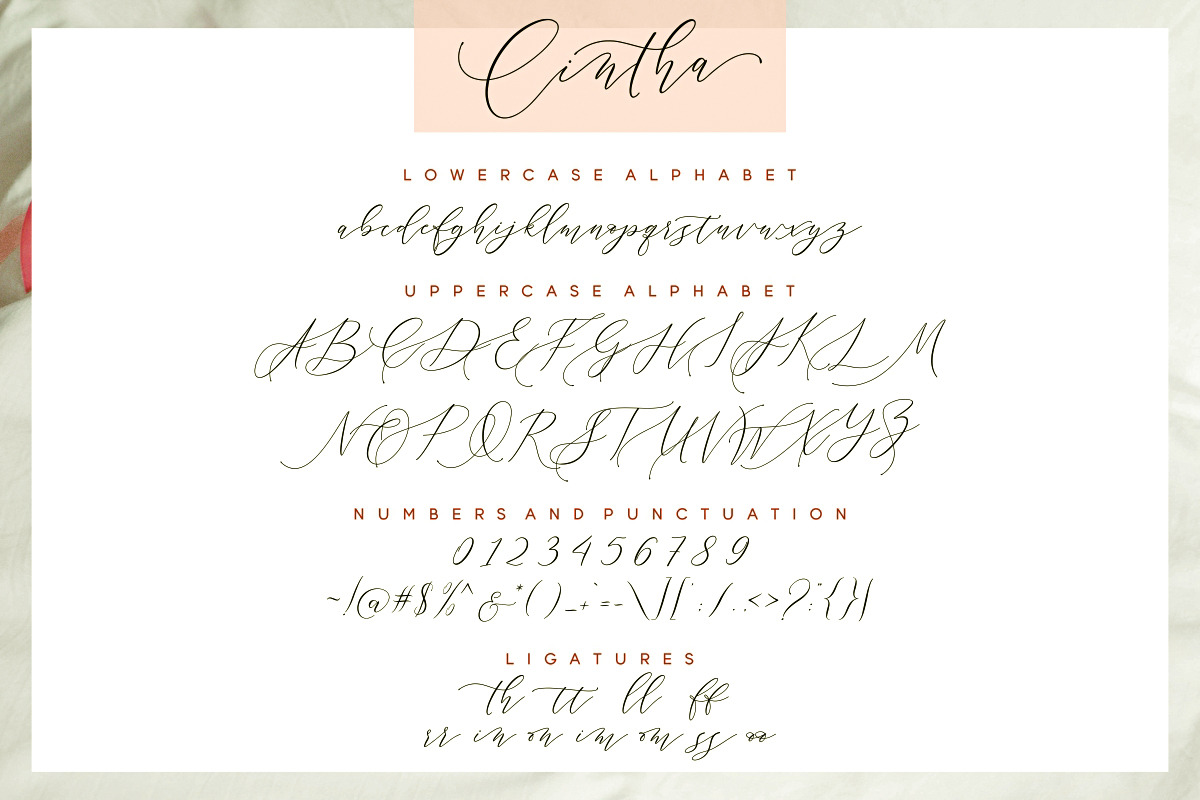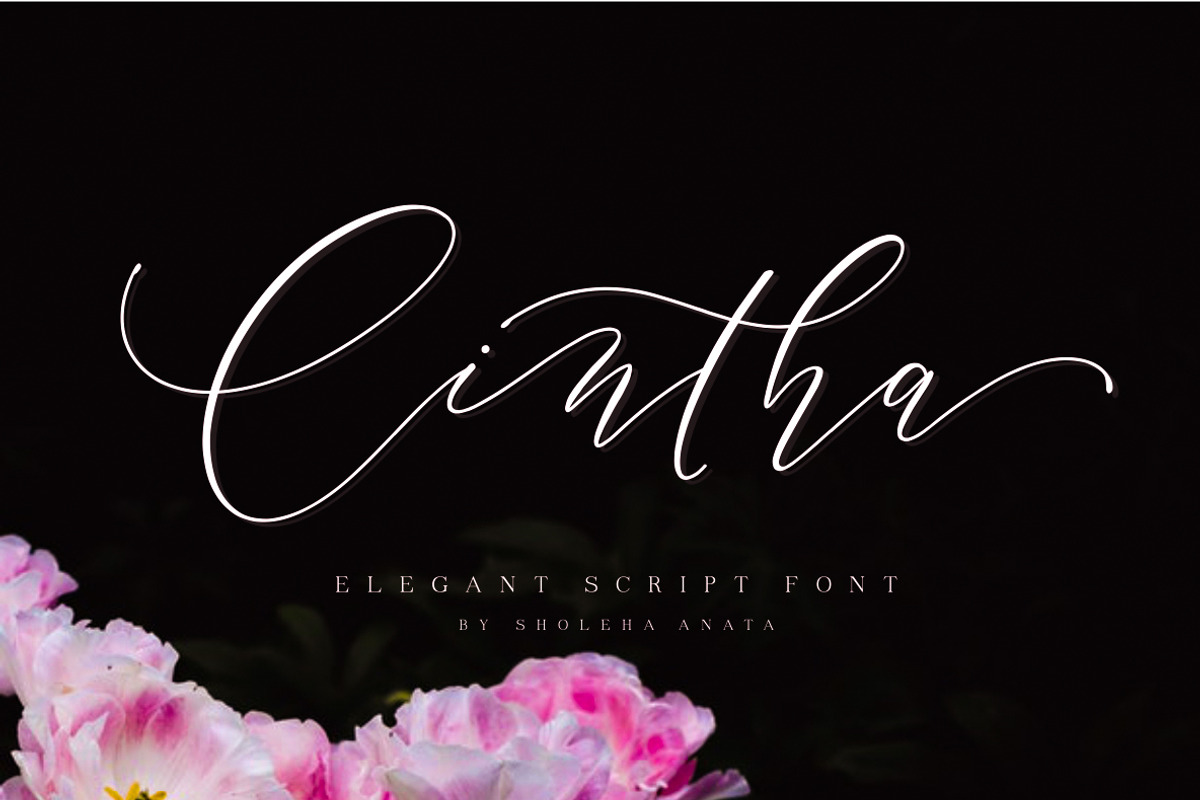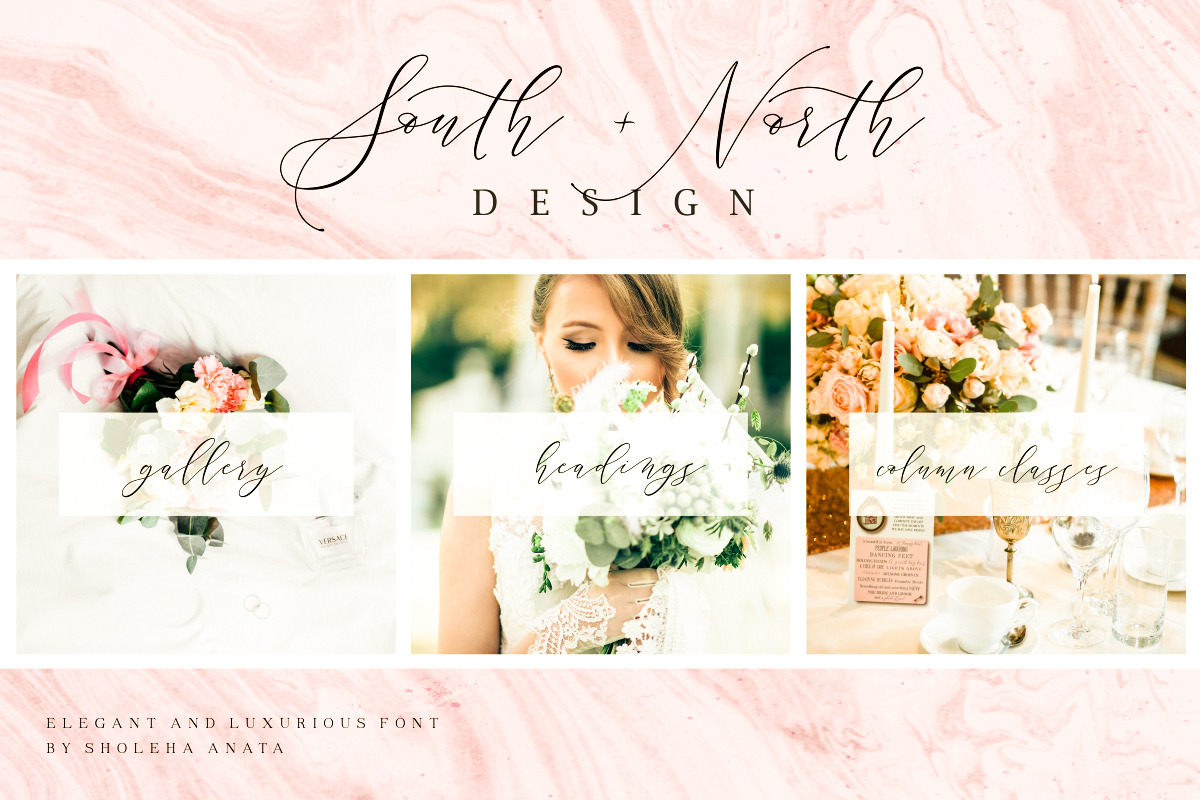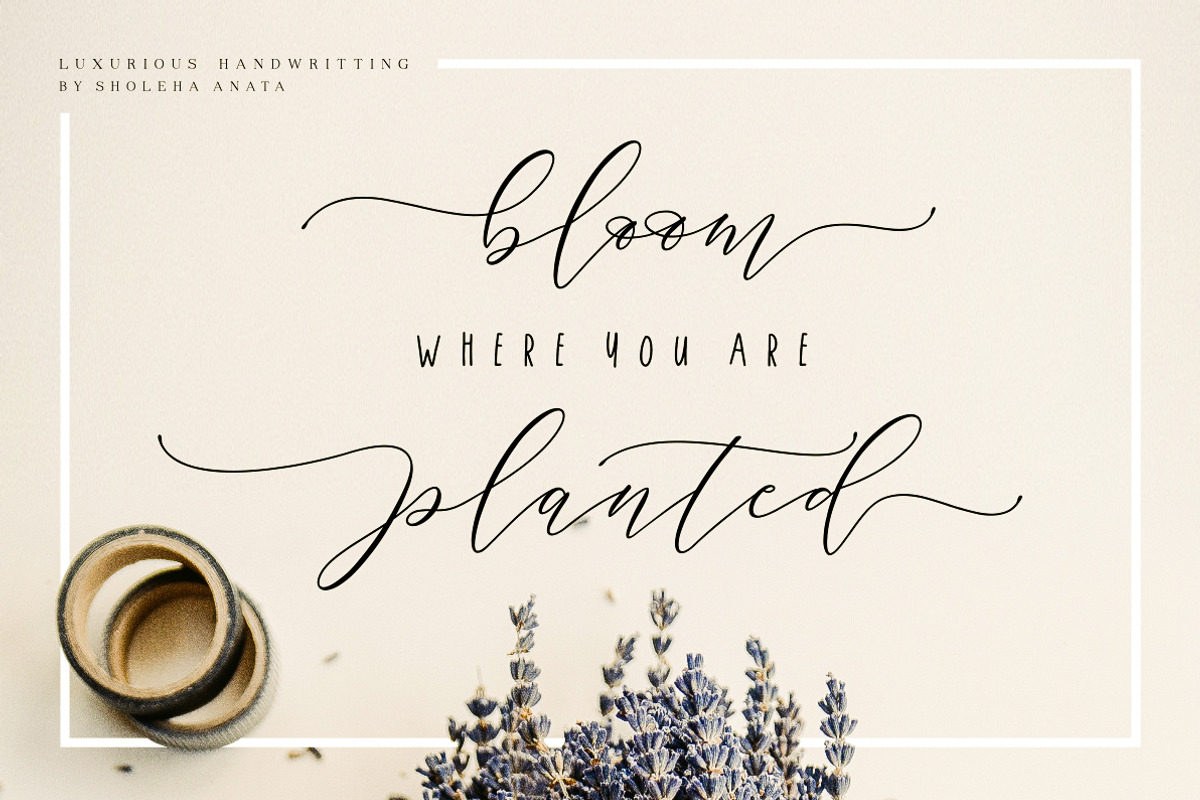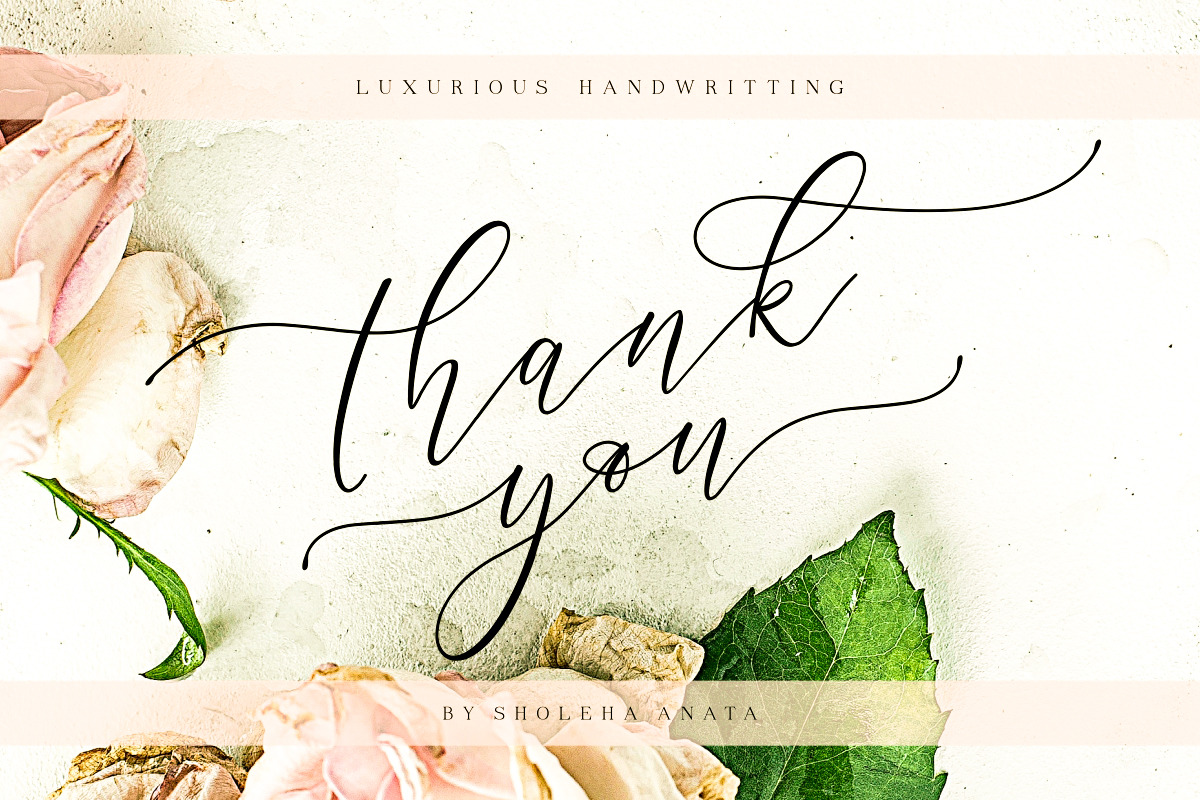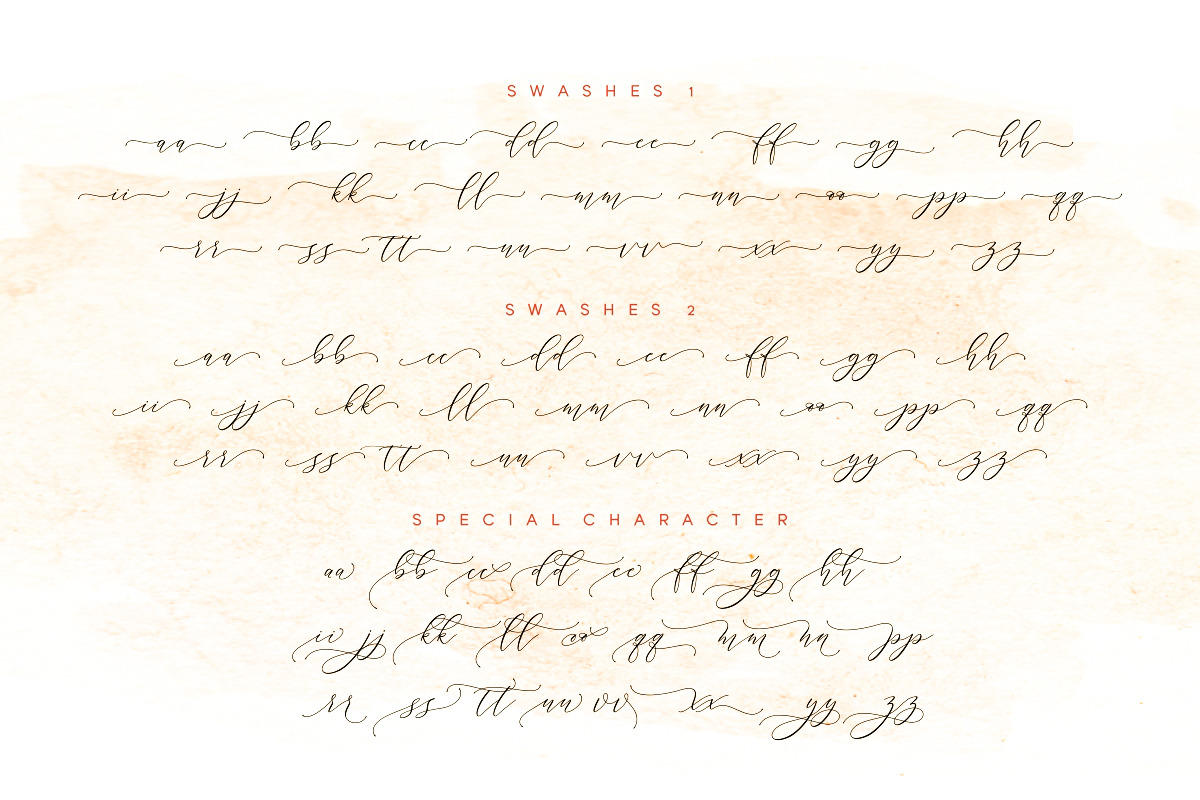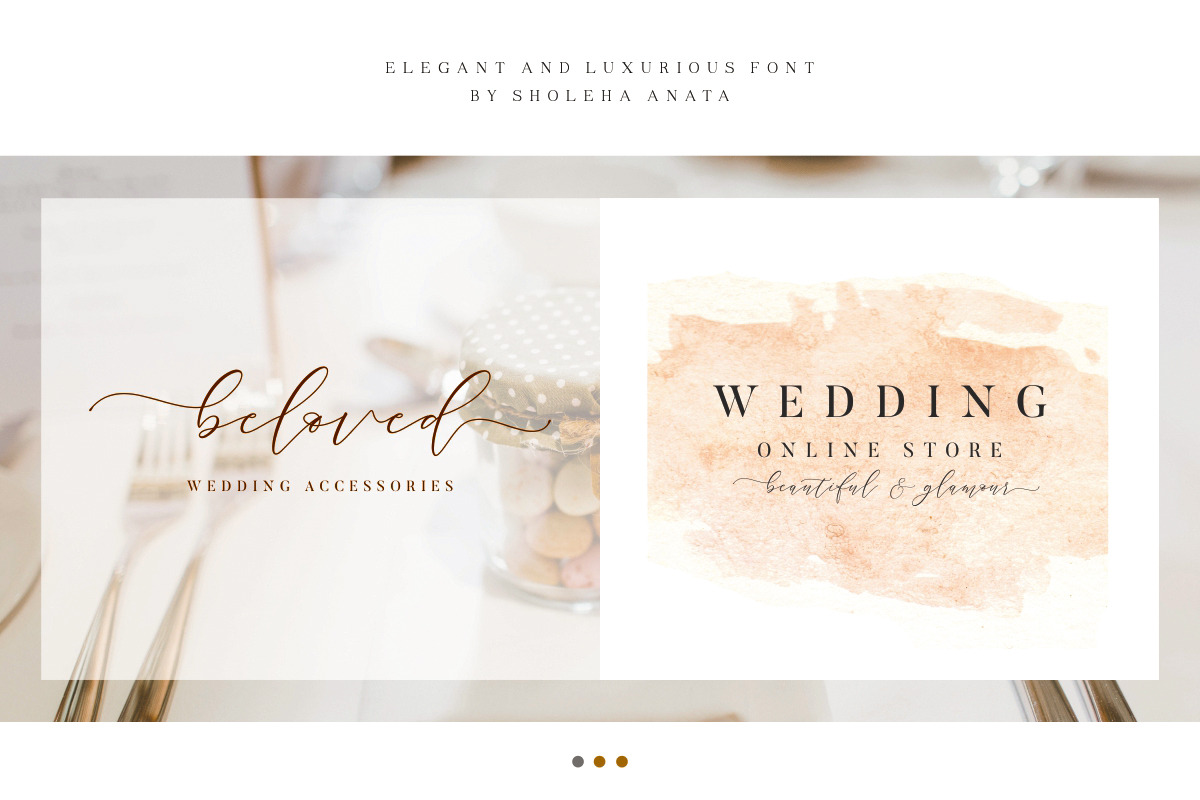
This font was made inspired by the requests of my friends who asked me to make their wedding invitation in the wedding one day. Cintha is a modern calligraphy font with handwritten, sophisticated flows. It is perfect for branding, wedding invites and cards.
Cintha includes full set of elegant uppercase and lowercase letters, multilingual symbols, numerals, punctuation and ligatures.
Following international symbols support: ÀÁÂÃÄÅĄÇĆÈÉÊËĘÌÍÎÏÐÑŃÒÓÔÕÖØÙÚÛÜŚŠŸÝŹŻŽàáâãäåçèéêëìíîïðñòóôõöøùúûüýÿćłńśšźżž
Also it includes:
- Long lowercase beginning and ending swashes.
- Short lowercase beginning and ending swashes.
- Special characters that will make your design more unique.
The font has smooth texture, so would be perfect for all types of printing techniques and you can do embroidery, laser cut, gold foil etc.
The swashes and Alt are called alternative style. For example, letter "a" with beginning and ending swashes are alternative style for "a". Also you can use the Cintha Alt inside a word. Example, a word "beauty" you can use the "t" letter from Cintha Alt to have a word with swash in the middle. In order to access you need them you need to open Glyphs panel.